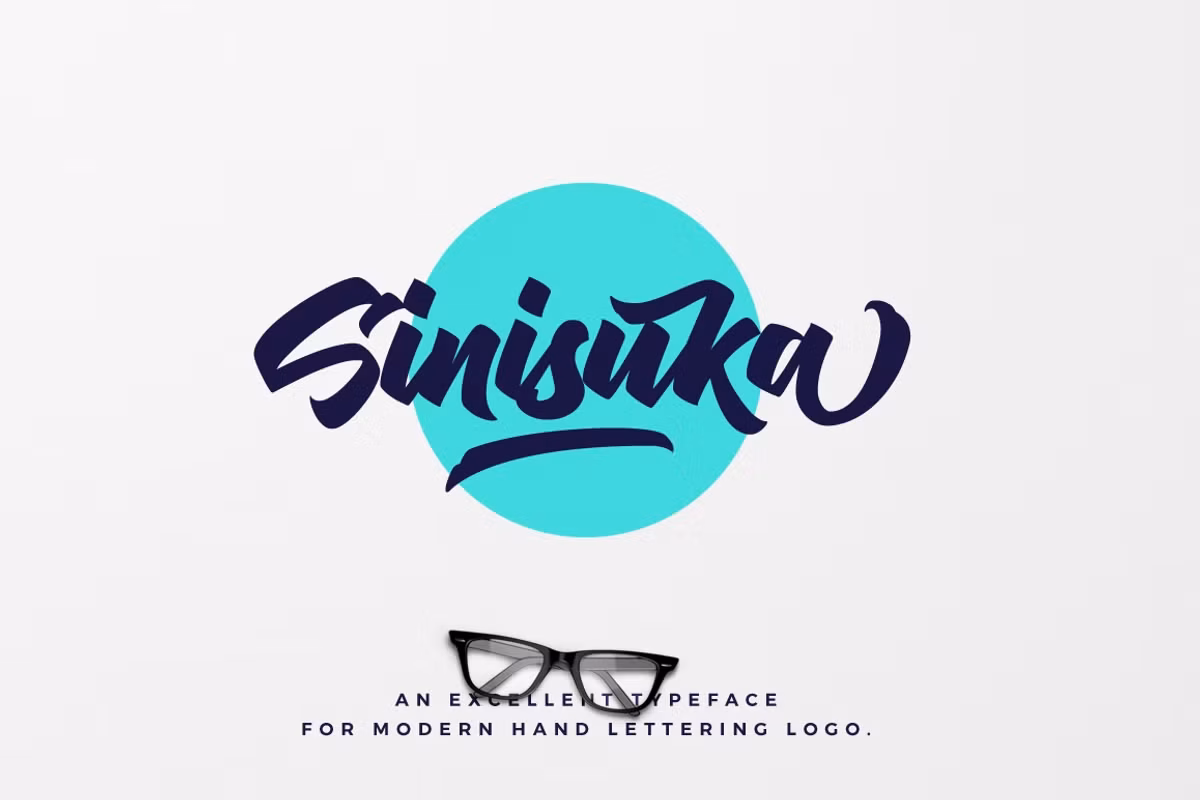
Sinisuka Logo Font Free Download is a modern and artistic typeface crafted specifically for logo design and brand identity. With its clean curves, creative flair, and strong visual impact, Sinisuka is perfect for businesses, influencers, and creatives seeking a distinctive and memorable look.
The font balances elegance and uniqueness, making it ideal not just for logos, but also for packaging, website headers, and social media graphics. It includes uppercase and lowercase characters, punctuation, and multilingual support, all optimized for smooth performance on Mac and Windows systems.